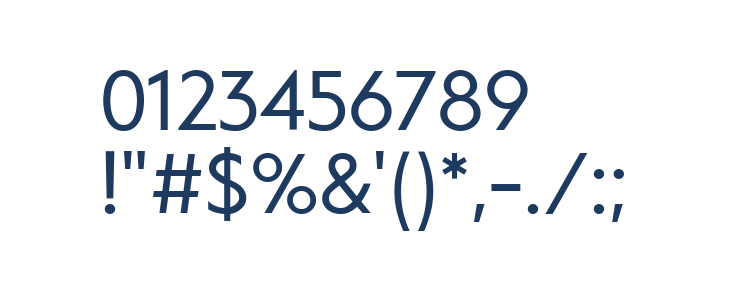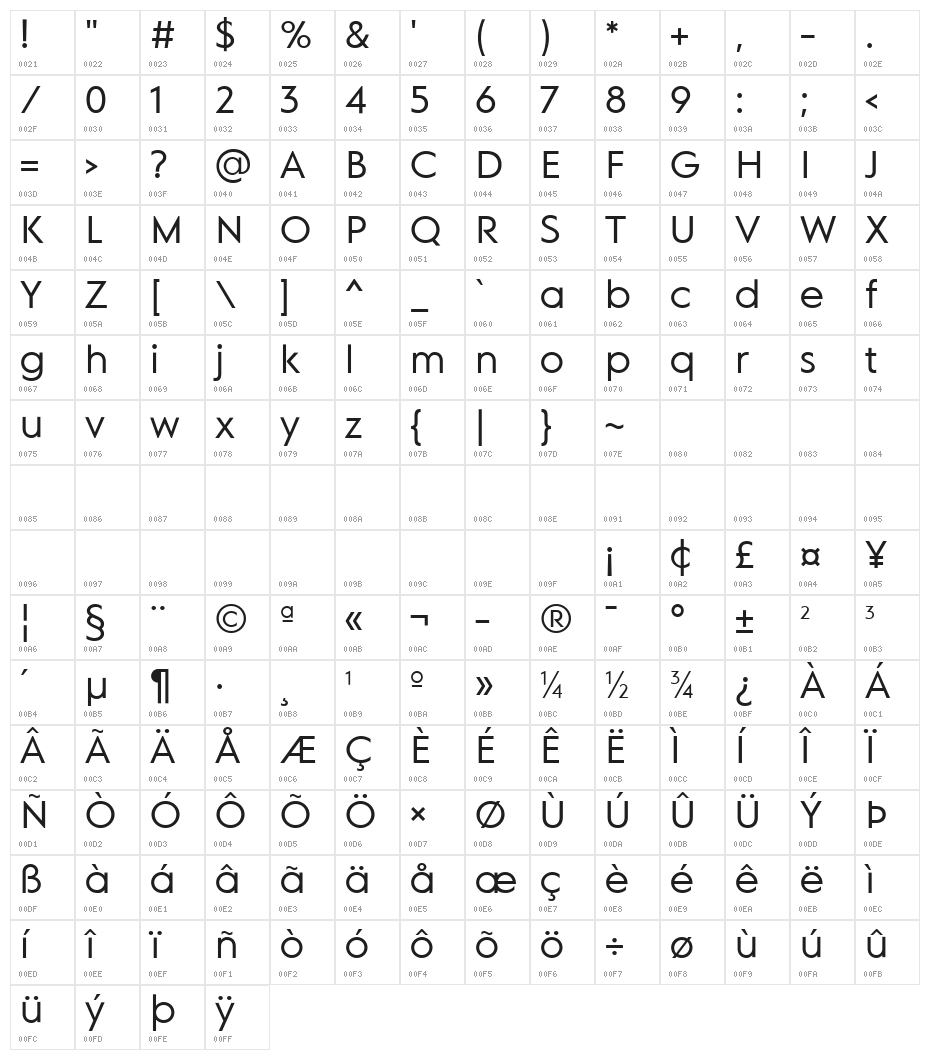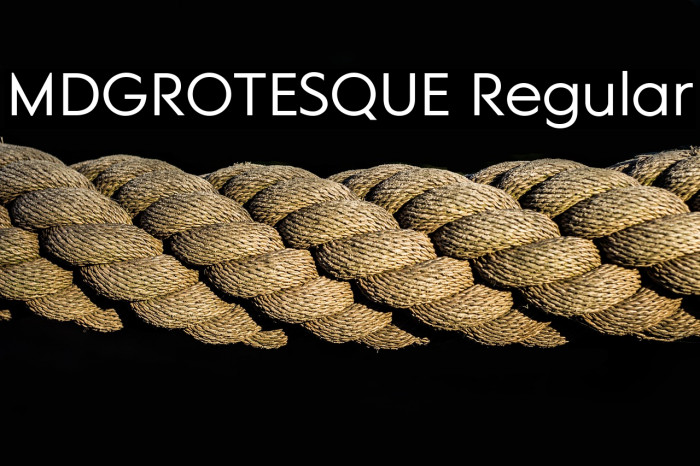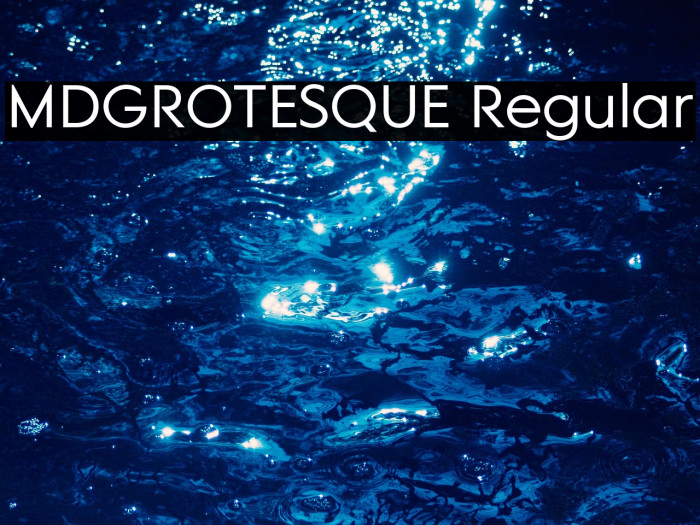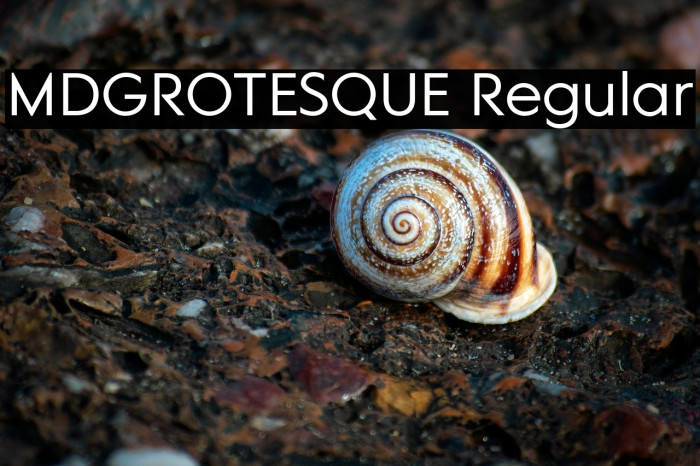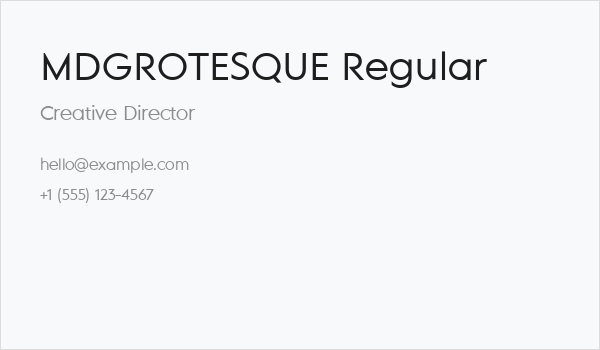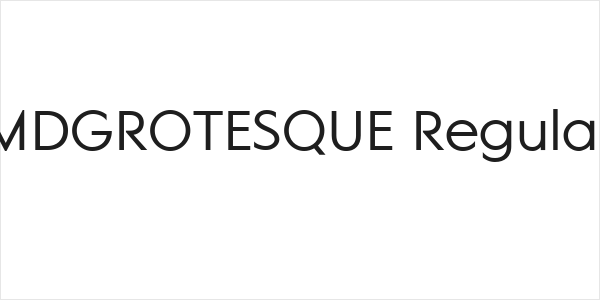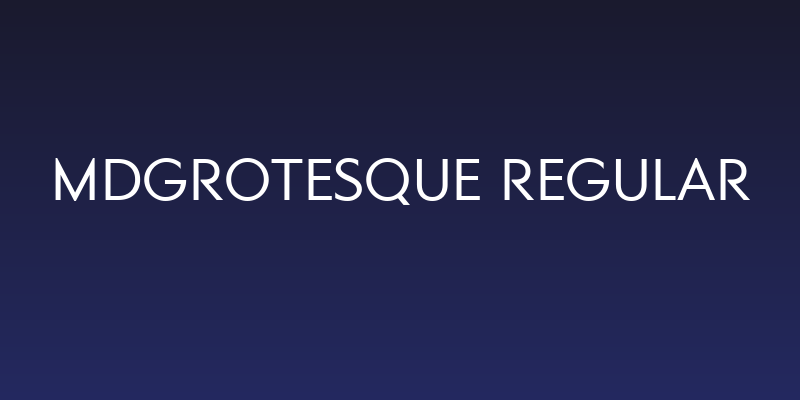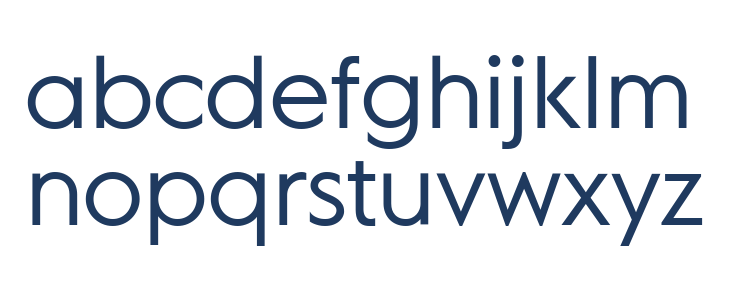
MDGROTESQUE Regular Font
MDGROTESQUE Regular Description
This typeface features a clean and modern design with a geometric structure. The characters are evenly spaced, providing a balanced and harmonious appearance. The uppercase letters are bold and assertive, while the lowercase letters maintain a consistent style that complements the overall aesthetic. The numerals are clear and legible, making them suitable for a variety of applications. Special characters are included, enhancing the font's versatility. The uniform stroke width across all characters contributes to a cohesive look, making it ideal for both digital and print media.